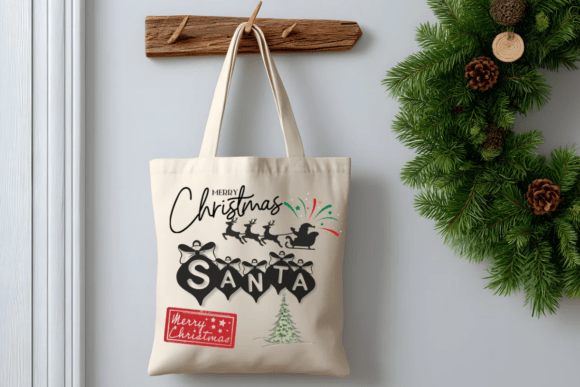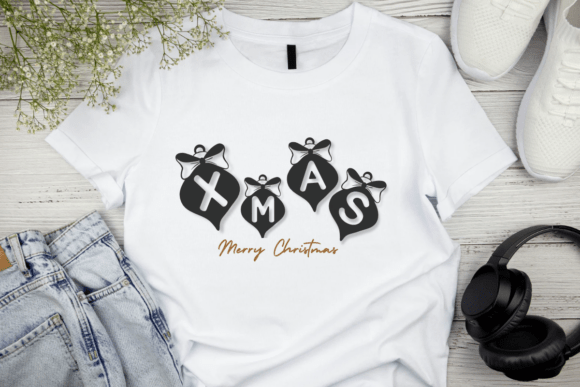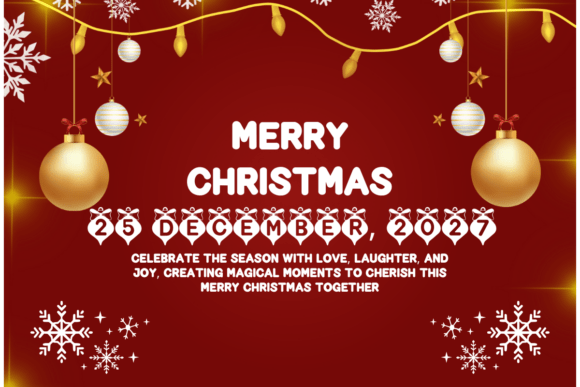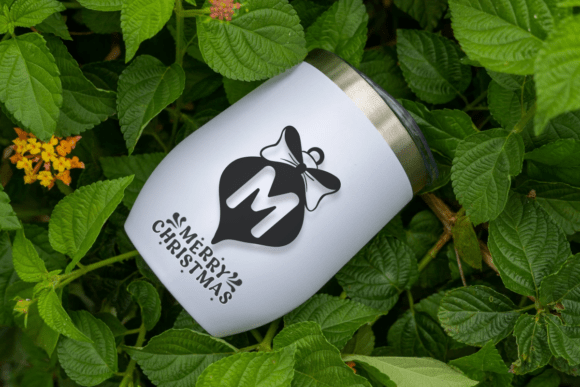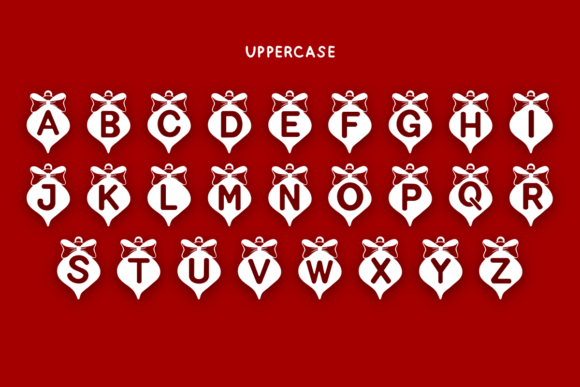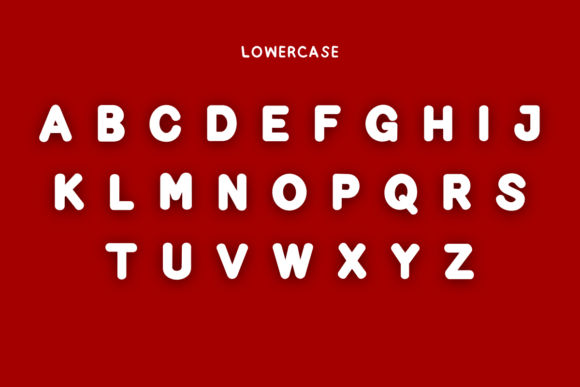
Introduction to Merry Ornament Font
Merry Ornament is a decorative font tumbling with charm and creativity.
Its enchanting grace makes it an ideal choice for crafting poetical notes, weaving tales in diaries, or gracing any beloved greeting cards But donโt simply restrict its use there โ Merry Ornament decorative font infuses a delightful essence into a multitude of designs.
Key Features of Merry Ornament Font
Why Choose Merry Ornament Font?